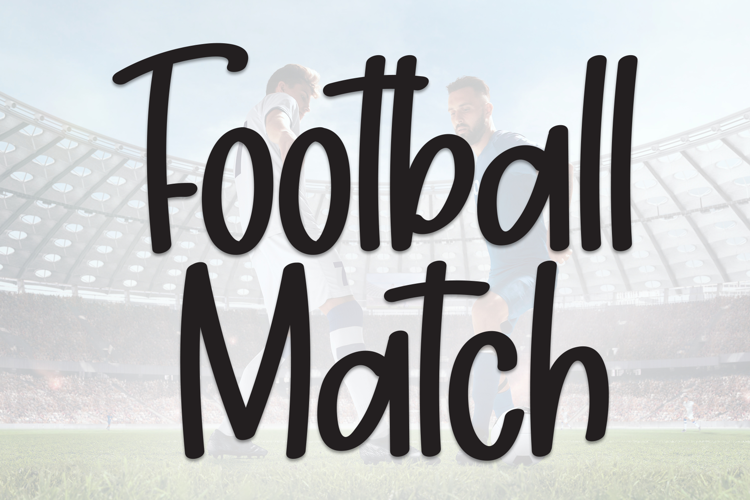
Football Tournament
Introducing, this is our newest product, we call this product Football Tournament,
It looks amazing with sweet touches and beautiful curves in each letter. Football Tournament fonts are perfect for: wedding invitations, fashion magazines, logos, signatures, photography, watermarks, wall displays, social media,